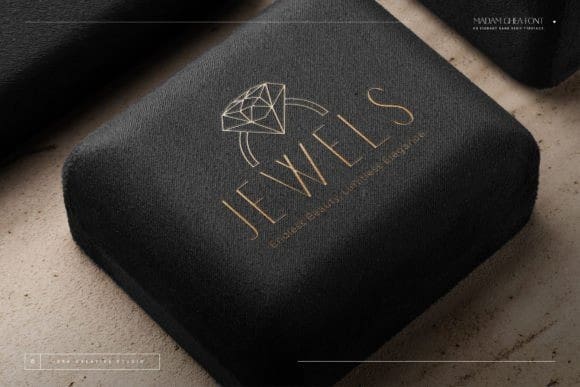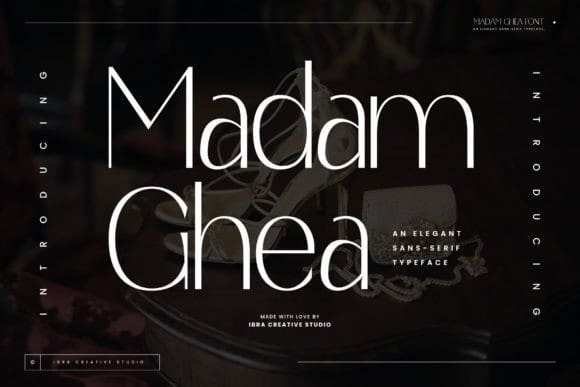
Madam Ghea Font
Madam Ghea Font, an elegant sans-serif typeface, epitomizes sophistication and modern refinement with its clean lines and tasteful simplicity. Each letter in MadamGhea is meticulously crafted, presenting a harmonious balance between minimalism and timeless elegance. The graceful curves and well-balanced proportions contribute to a sense of effortless chic, making it a versatile choice for a wide range of design applications.